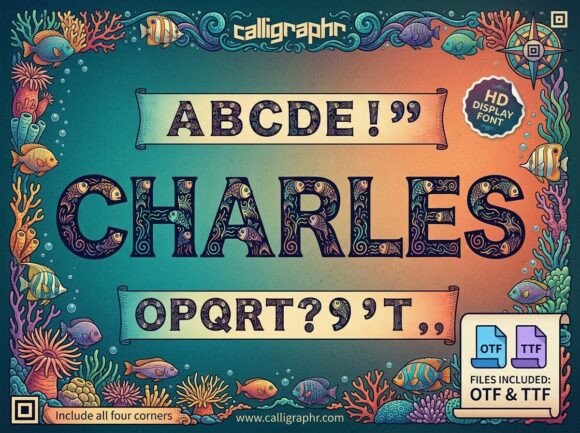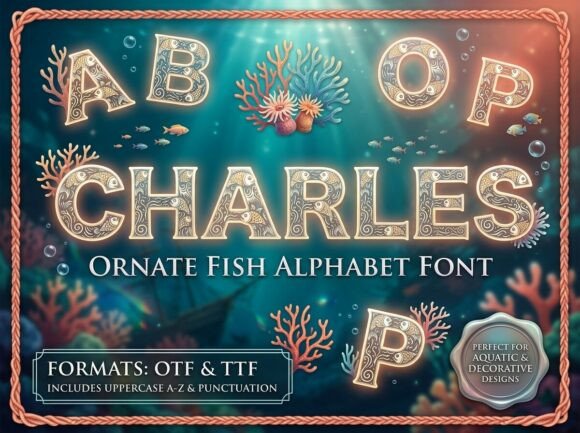
Introducing Charles Font: The Ultimate Decorative Display Font for Creative Projects
Are you tired of using the same old fonts for your designs? Look no further than Charles Font, a stunning decorative display font that’s sure to turn heads. With its unique artistic elements and strong visual personality, this font is perfect for creators who want to break away from the ordinary and make a statement.
Charles Font is designed to be the center of attention, featuring intricate details and creative letterforms that are sure to add an instant “wow” factor to any project. Whether you’re designing a modern poster, a unique brand identity, or eye-catching social media content, this font is the perfect choice. Its bold and artistic style makes it ideal for high-impact designs where the typography needs to do the talking.
One of the best things about Charles Font is its versatility. It’s perfect for a wide range of creative projects, including:
- Poster Design: Create headlines that people can’t look away from with Charles Font. Its bold and eye-catching style makes it perfect for posters, flyers, and other print materials.
- Branding & Logos: Build a unique identity for creative businesses with Charles Font. Its artistic and professional style makes it perfect for logos, business cards, and other branding materials.
- Apparel & Merch: Perfect for T-shirts, hoodies, and tote bag designs, Charles Font adds a touch of elegance and sophistication to any apparel or merchandise.
- Social Media: Make your quotes and announcements stand out in the feed with Charles Font. Its bold and eye-catching style makes it perfect for social media graphics and posts.
- Packaging: Give your products a premium feel with Charles Font. Its professional and polished finish makes it perfect for product packaging, labels, and other materials.
Why Choose Charles Font?
So why choose Charles Font over other decorative display fonts? Here are just a few reasons:
- Unique Artistic Elements: Charles Font features unique artistic elements that set it apart from other fonts. Its intricate details and creative letterforms make it perfect for designs that need to stand out.
- Strong Visual Personality: This font has a strong visual personality that’s sure to make a statement. Its bold and artistic style makes it perfect for high-impact designs.
- Professional and Polished Finish: Despite its bold and artistic style, Charles Font maintains a professional and polished finish that’s perfect for a wide range of creative projects.
Tips for Using Charles Font
Here are a few tips for using Charles Font in your designs:
- Use it as a Headline Font: Charles Font is perfect for headlines and titles. Use it to add a touch of elegance and sophistication to your designs.
- Experiment with Colors: Charles Font looks great in a wide range of colors. Experiment with different colors and gradients to find the perfect look for your design.
- Pair it with Other Fonts: Charles Font pairs well with other fonts, including serif and sans-serif fonts. Experiment with different font combinations to find the perfect look for your design.
Charles Font is a stunning decorative display font that’s perfect for creators who want to break away from the ordinary and make a statement. With its unique artistic elements, strong visual personality, and professional and polished finish, this font is ideal for a wide range of creative projects. Whether you’re designing a modern poster, a unique brand identity, or eye-catching social media content, Charles Font is the perfect choice. So why wait? Download Charles Font today and take your designs to the next level!